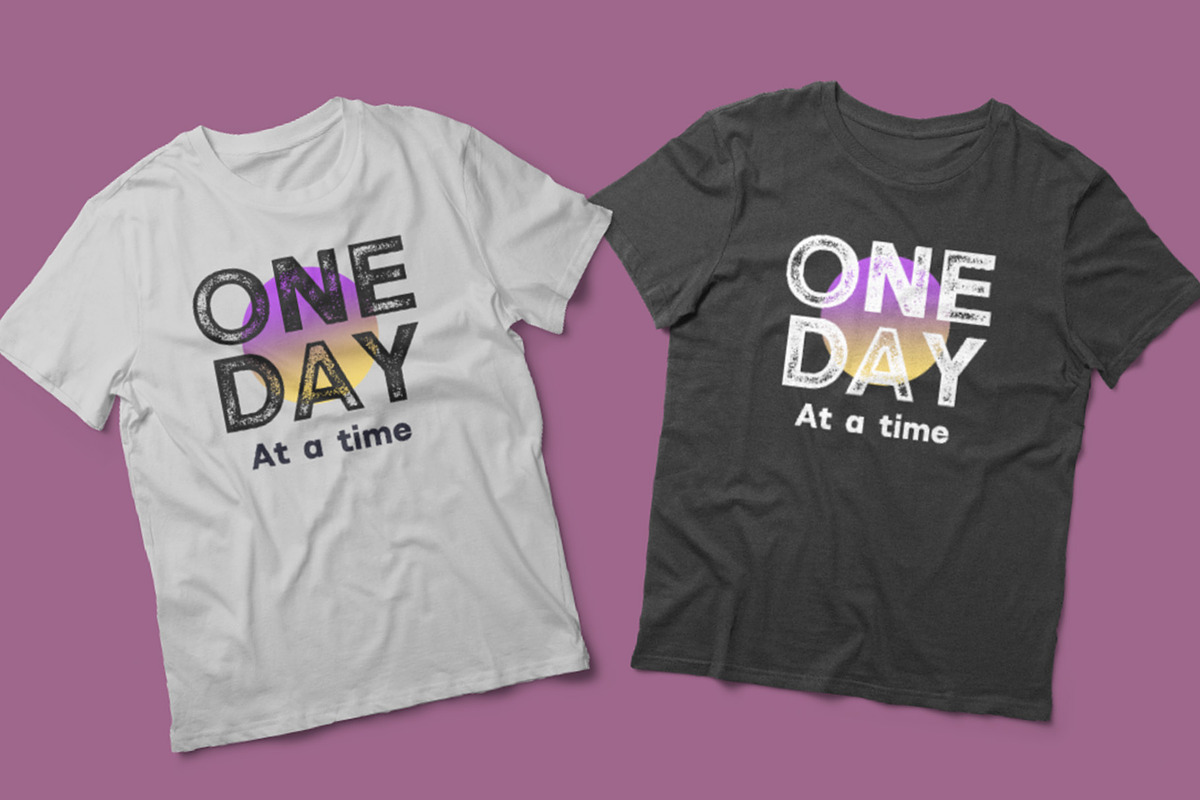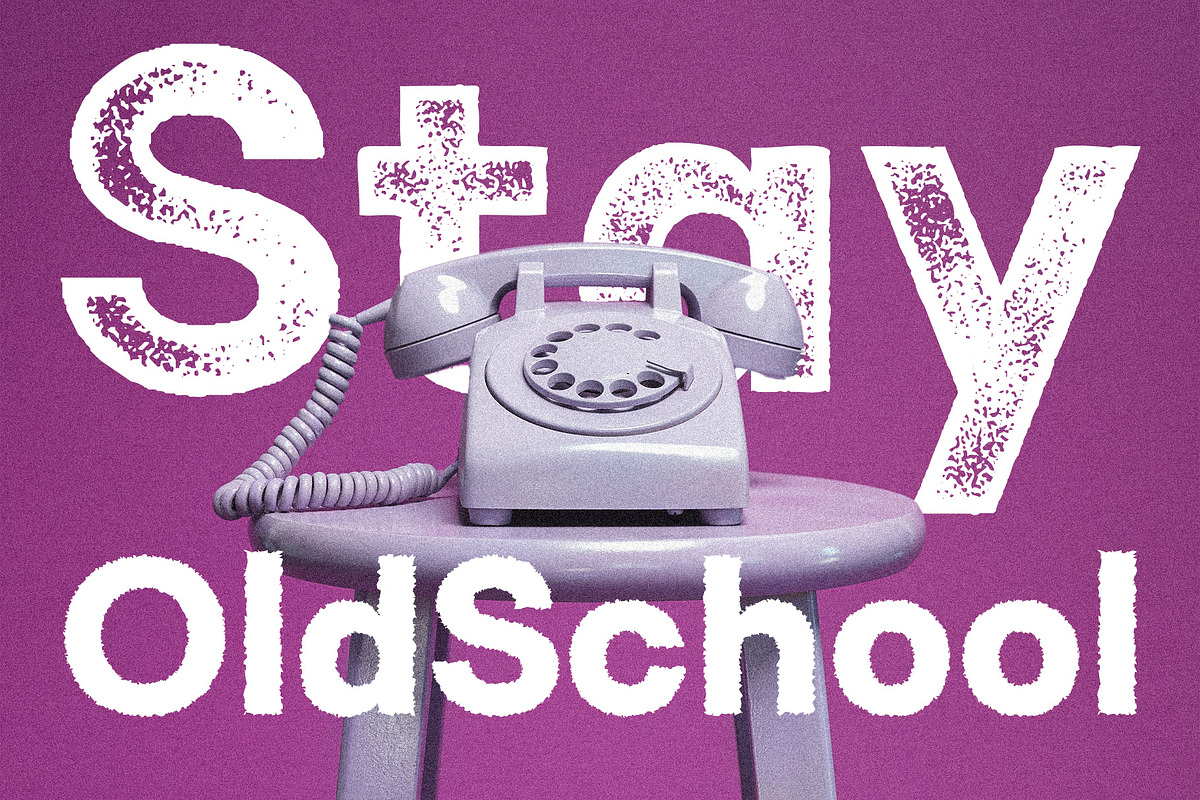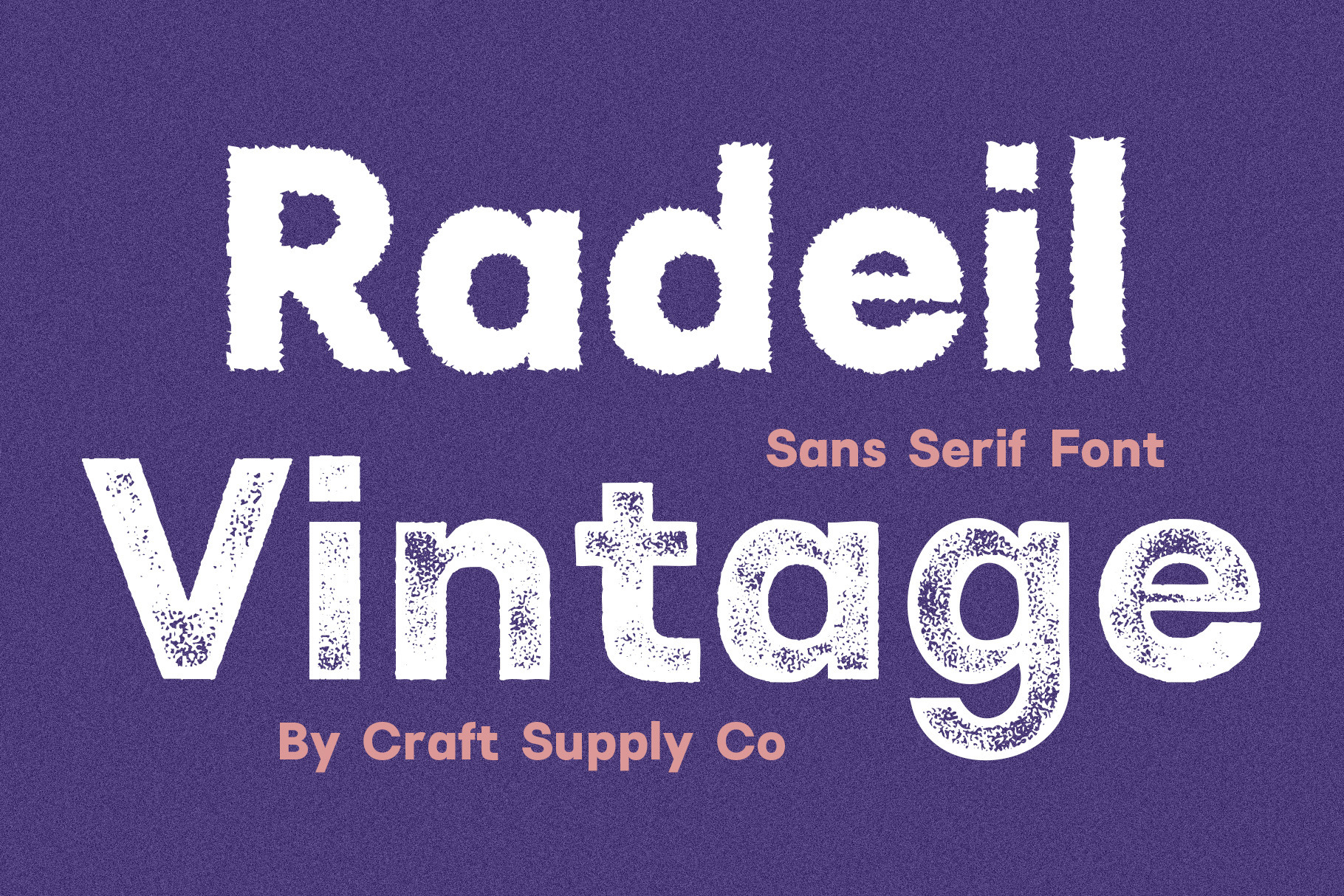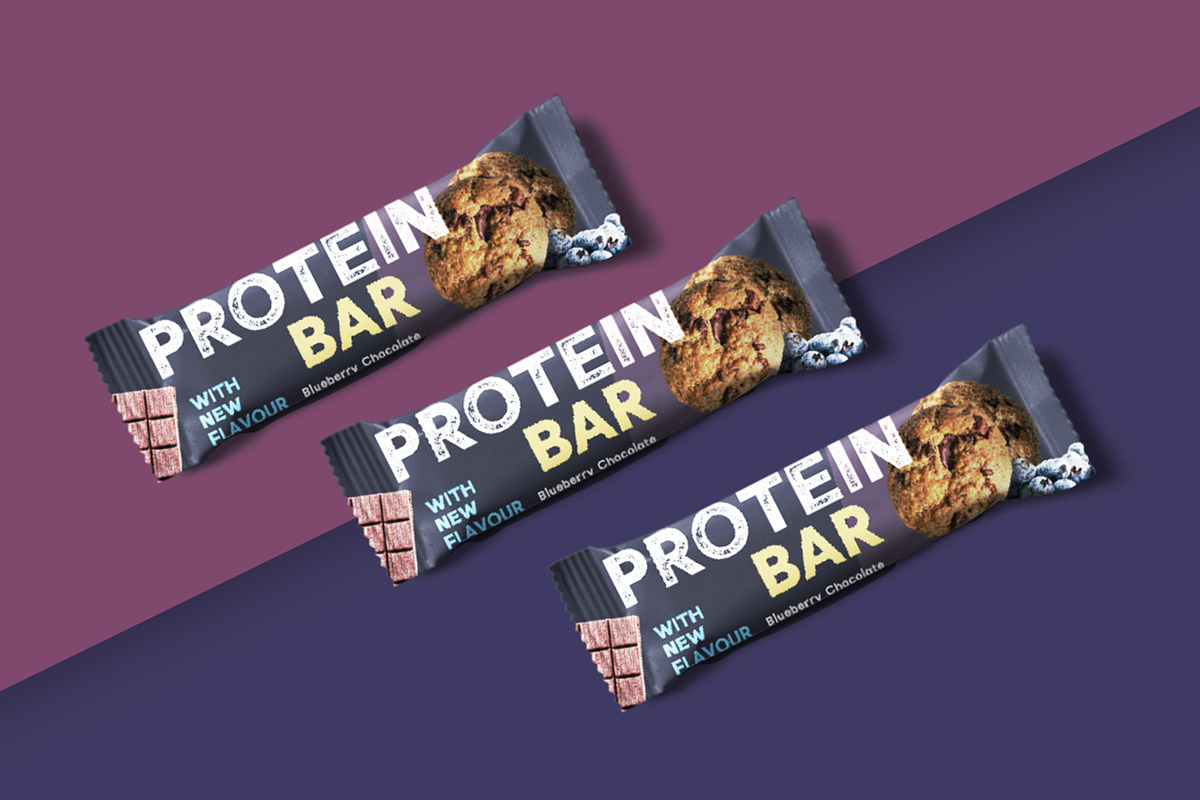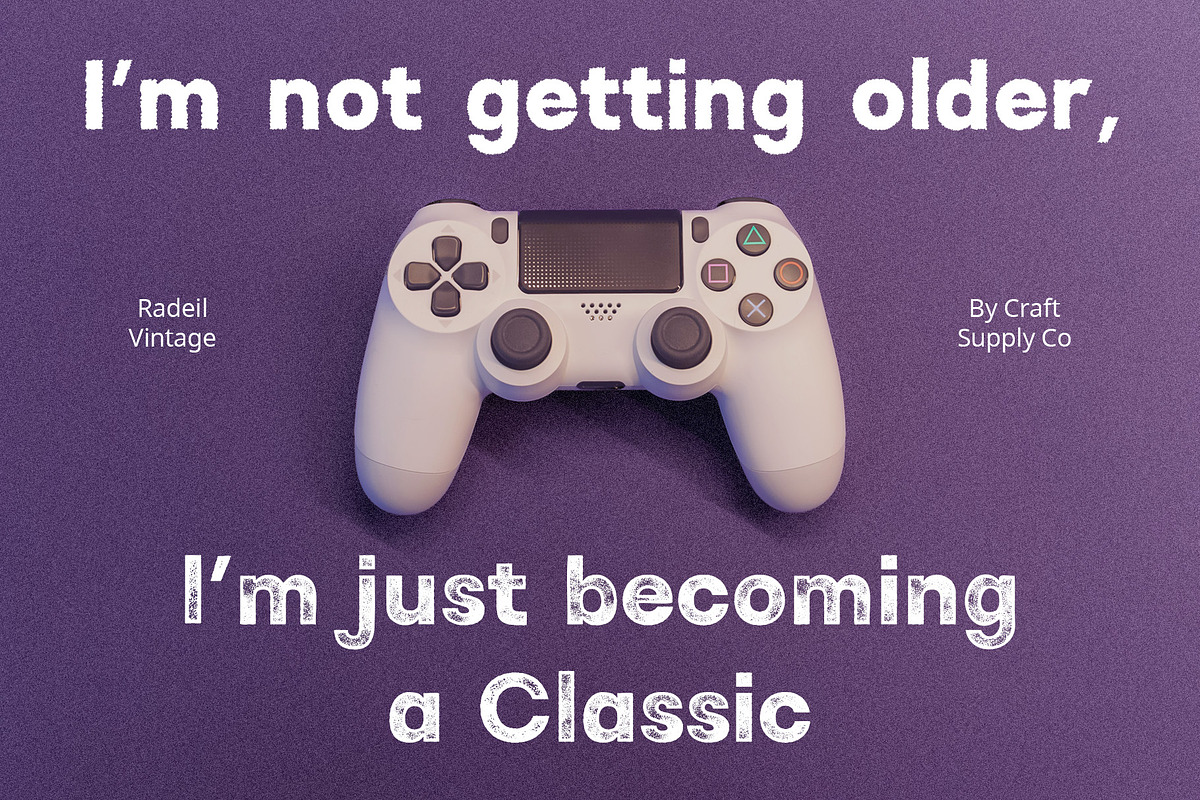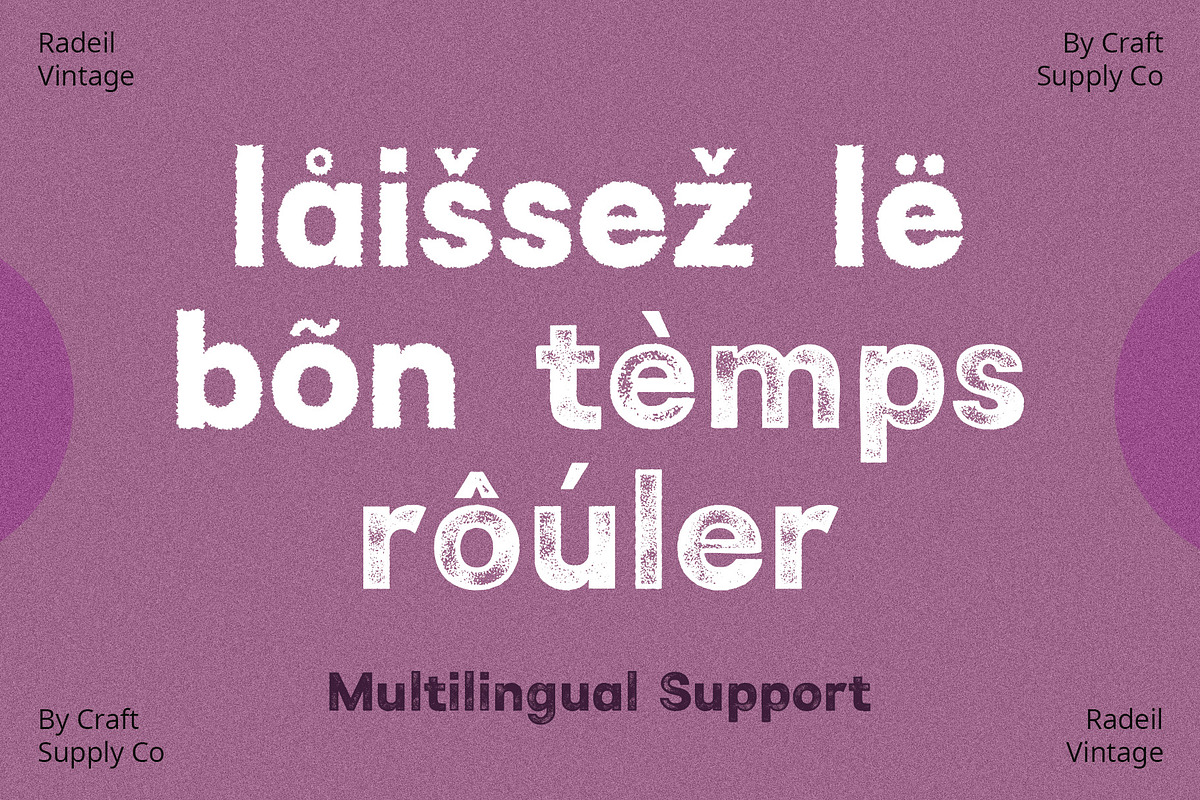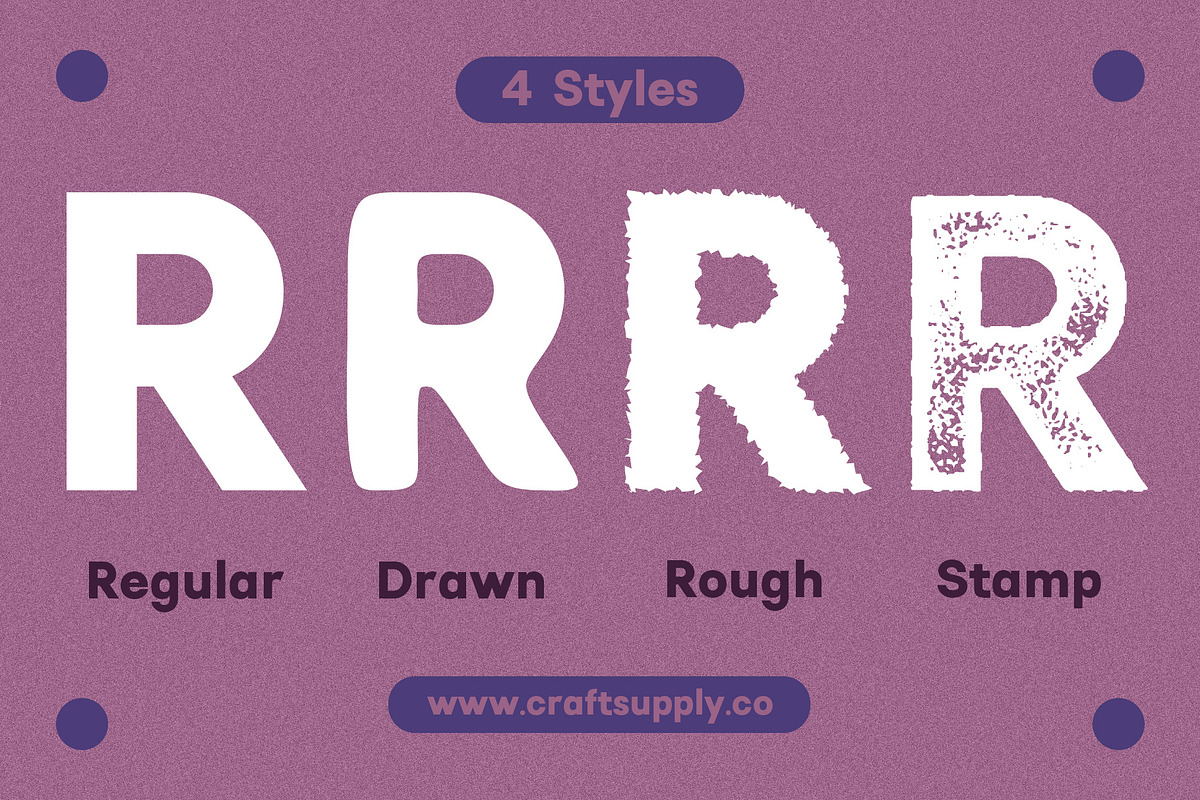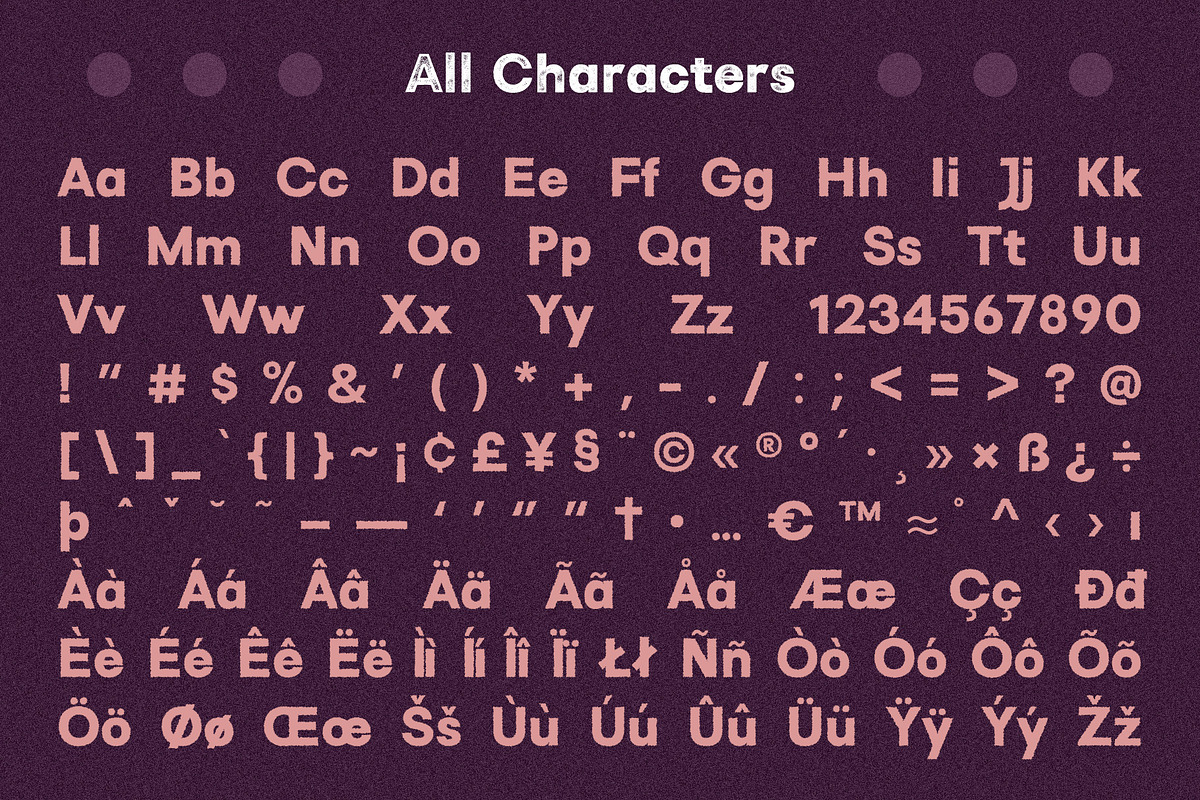
Radeil Vintage – Sans Serif Font
Introduction to Radeil Vintage
Radeil Vintage is a distinctive sans serif font with a timeless appeal. It blends vintage charm with modern simplicity. This font stands out with its unique stamp-style and rough texture.
Radeil Vintage showcases a rough, textured look, resembling a hand-stamped imprint. Its characters have a slightly eroded appearance, adding to the vintage feel. The font maintains clean lines, typical of sans serif fonts, ensuring readability.
Versatility and Usage
Ideal for various design projects, Radeil Vintage is versatile. It’s perfect for logos, posters, and branding that require a retro touch. Its distinct style enhances both digital and print media.
Accessibility and Appeal
With its straightforward design, Radeil Vintage is accessible to a wide audience. Its simplicity makes it easy to use, appealing to designers of all skill levels. This font brings a unique vintage flair to any project.
- Radeil Regular
- Radeil Drawn
- Radeil Rough
- Radeil Stamp